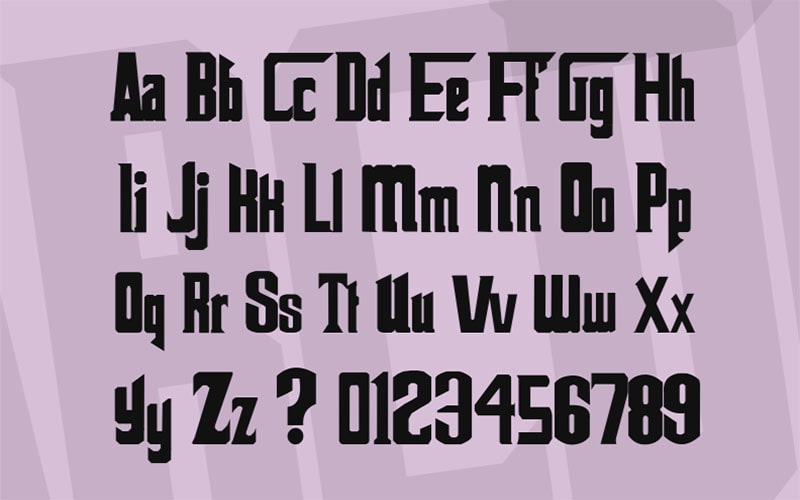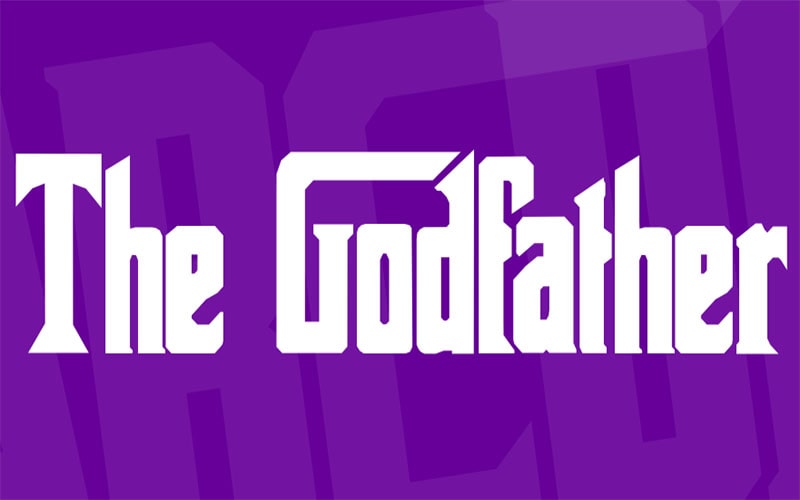
The Godfather Font is a typeface inspired by the iconic title of the famous movie series “The Godfather.” This font embodies a sense of classic style, drama, and elegance, making it ideal for designs that require a powerful and memorable impact.
The specific designer of The Godfather Font is Randombell as there are several versions inspired by the movie’s title. It is often created by typographers or foundries who aim to capture the essence of the iconic design.
It is characterized by its bold, serif letterforms with dramatic, elongated features. The font captures the essence of the movie’s title design, making it instantly recognizable.
This includes a comprehensive character set such as Uppercase letters, Lowercase letters, Numerals, Punctuation marks, Special characters, and symbols.
The Godfather Font
| Font Name: | The Godfather Font |
| Style: | Bold, Serif, Typeface |
| Font Designer: | Randombell |
This typeface typically comes in a single, bold style emphasizing its strong and dramatic nature. Some versions may offer additional weights or variations to provide more flexibility in design.
It is ideal for a variety of design applications, including Movie posters and promotional materials, Book covers and titles, Branding and logos for dramatic or classic-themed projects, and many more.
You can also use similar bold and display typefaces, such as Tungsten Font designed by Hoefler, and Frere Jones, and Pricedown Font designed by Typodermic Fonts Ray Larabie.